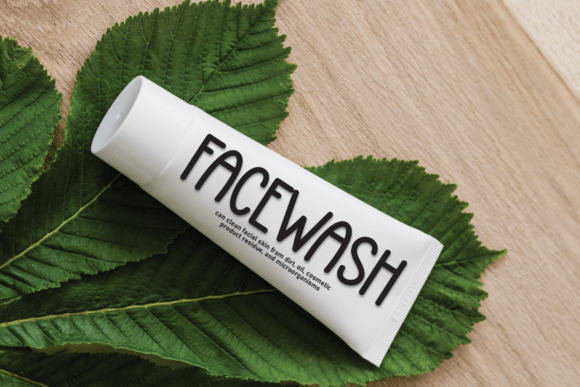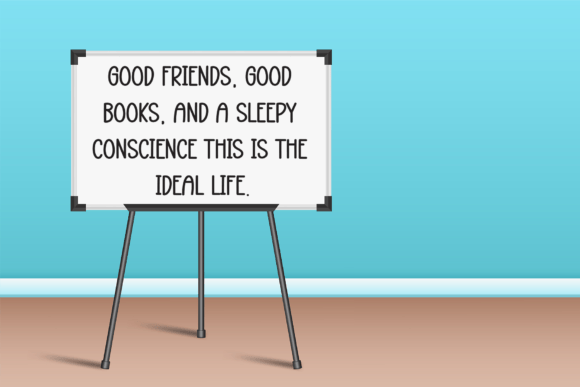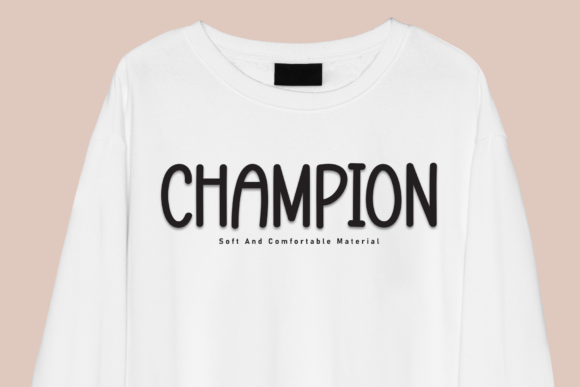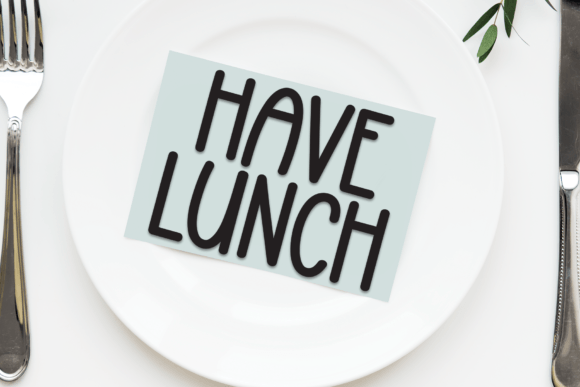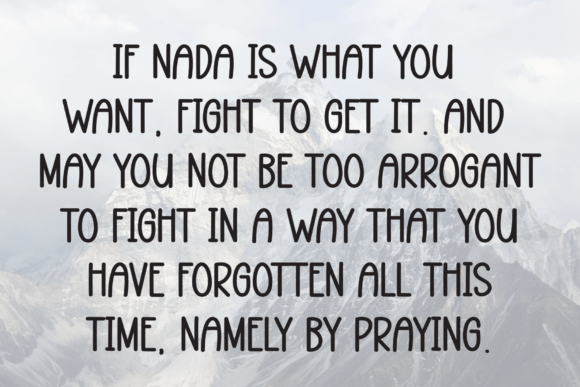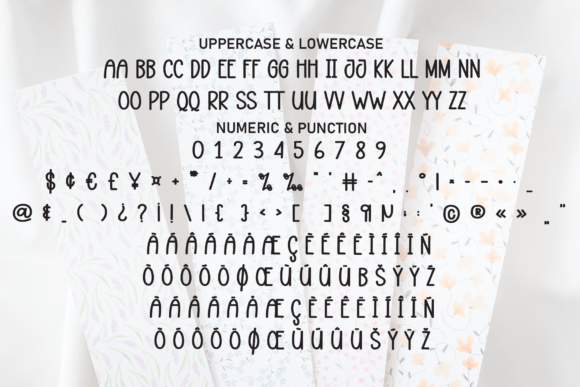
The Perfect Fit: Introducing Bookmark Font
Have you ever spent hours browsing through design inspiration, only to find the perfect font that perfectly captures the essence of your project, but you can’t quite put your finger on what it is? That was me last week, and it led me to discover Bookmark Font – a game-changing addition to any designer’s toolkit.
Bookmark Font is a casual sans-serif font designed for everyday design projects. Its clean and approachable look makes it perfect for websites, apps, and branding. With simple, rounded letterforms, Bookmark Font creates a friendly and relaxed feel that’s sure to engage your audience.
For designers, Bookmark Font is a valuable asset that offers readability and modern appeal. Whether you’re working on a personal project or a client’s site, this font is sure to elevate your design to the next level.
Bookmark Font Key Features
- Font Family: Bookmark Font is a sans-serif font designed specifically for digital use.
- Unique Characteristics: Bookmark Font features a distinctive, modern design with clean lines and geometric shapes, making it ideal for digital interfaces, web design, and mobile applications.
Bookmark Font Review
I recently had the chance to work with Bookmark Font, and I must say it’s a unique addition to any digital project. Here’s my honest take on this font:
- The font’s playful, handwritten feel makes it perfect for casual designs, like blog posts or social media graphics.
- The extensive character set ensures you’ll have all the letters you need, including accents and punctuation marks.
- The font is highly customizable, allowing you to adjust the size, color, and spacing to suit your design.
- Bookmark Font supports a wide range of languages, making it a great choice for multilingual projects.
- The font may not be suitable for formal or professional designs, as it has a somewhat informal feel.
- The font’s high customizability can sometimes make it difficult to achieve a consistent look across different elements.
- The font’s support for certain languages may not be as extensive as other fonts, which could be a limitation for some projects.
Overall, I think Bookmark Font is a great choice for designers who want to add a touch of personality to their projects. While it may not be suitable for every design, its unique feel and extensive customization options make it a valuable addition to any designer’s toolkit.
Tips for Getting the Most Out of Bookmark Font
Here are a few tips for getting the most out of Bookmark Font:
- Use Bookmark Font to create eye-catching headings and titles.
- Combine Bookmark Font with other design elements to create a unique and engaging look.
Here are a few common use cases for Bookmark Font:
- Book covers and titles
- Marketing materials and advertisements
- Website headers and footers
Alternatives to Bookmark Font for Designers
Montserrat is a sans-serif font that originated in Buenos Aires. It is ideal for use in digital interfaces and signage due to its clean and modern appearance. Compared to Bookmark Font, Montserrat is more versatile and comes in a wide range of weights and styles, making it a popular choice for designers.
Lato is a sans-serif font that is designed to be highly legible and suitable for digital use. It is particularly well-suited for titles and headings due to its elegant and refined appearance. While Lato shares some similarities with Bookmark Font in terms of its modern aesthetic, it is more versatile and offers a wider range of weights and styles.
Open Sans is a sans-serif font that is designed to be highly legible and suitable for digital use. It is a popular choice for designers due to its clean and modern appearance, as well as its wide range of weights and styles. Compared to Bookmark Font, Open Sans is more versatile and offers a more neutral aesthetic, making it a good choice for a wide range of design applications.